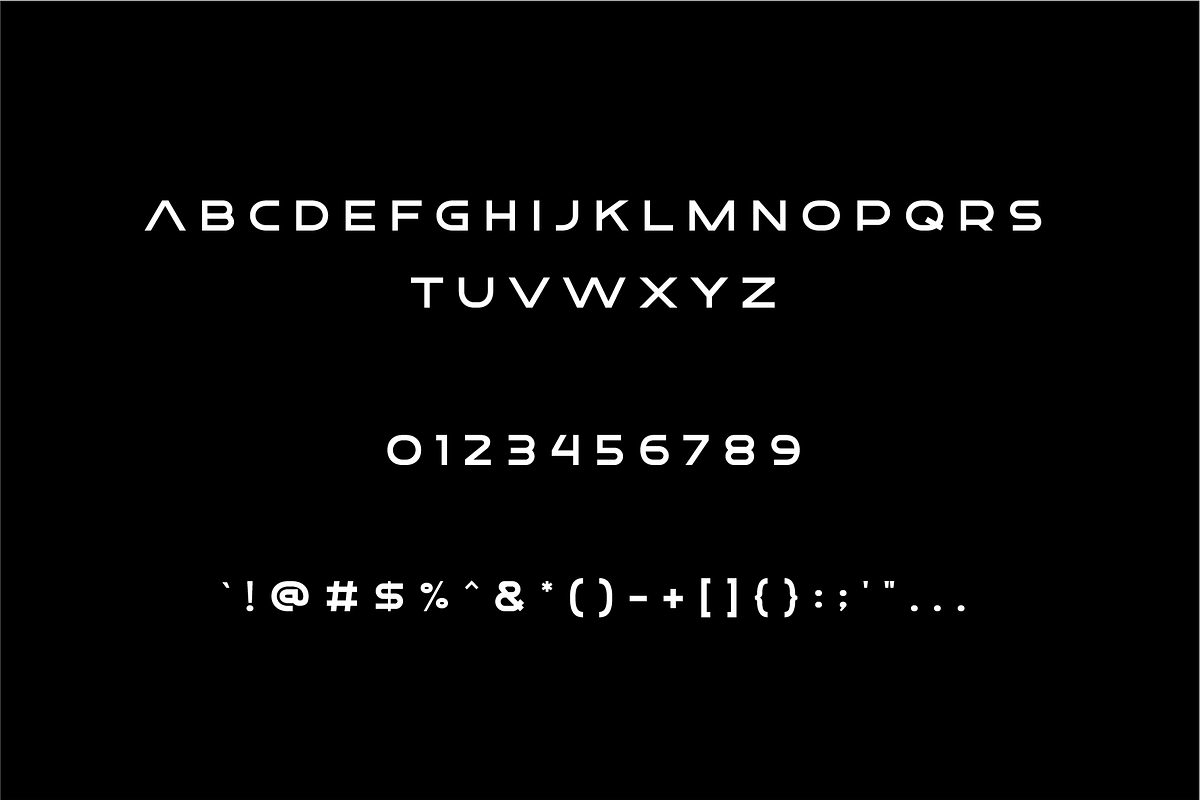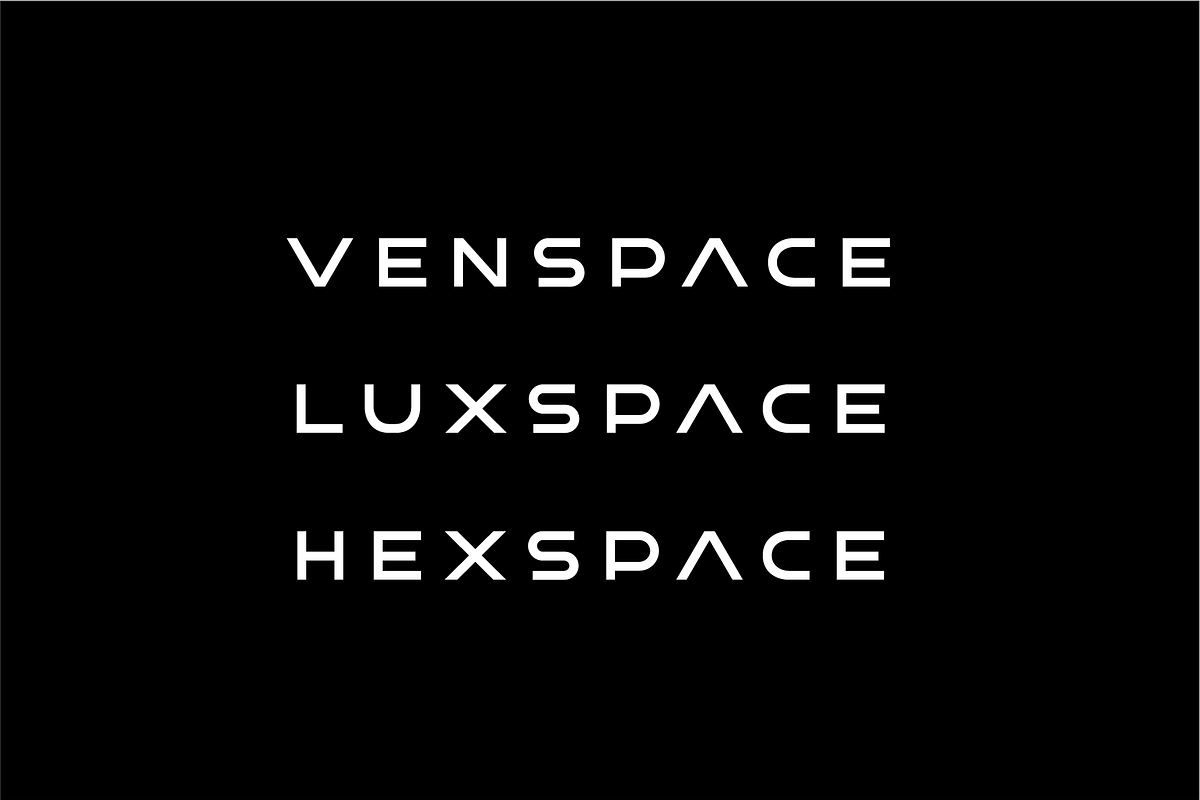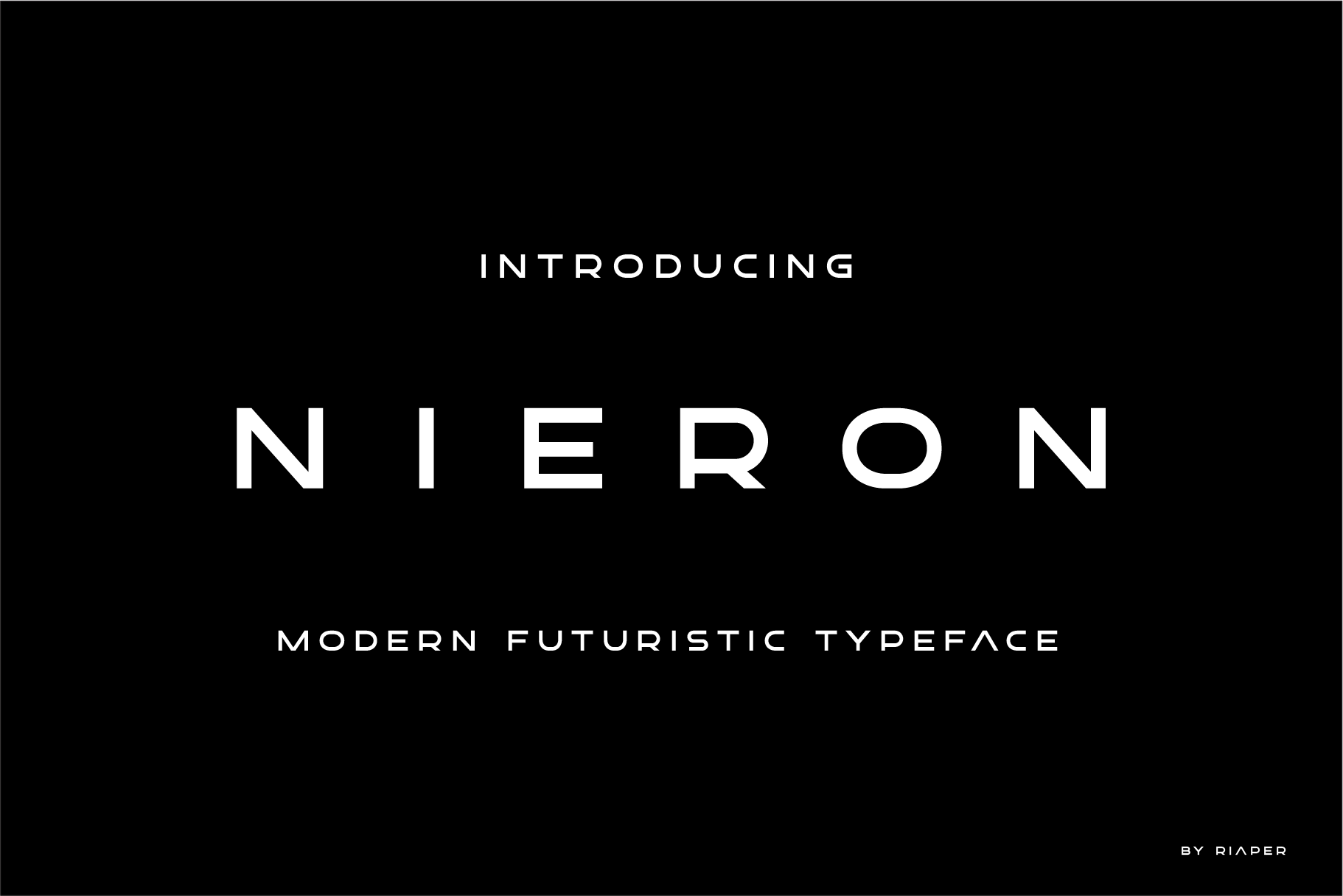
Nieron - Futuristic display typeface
Nieron is a bold futuristic display font designed to give your work a sleek, modern, and technological edge. Each letter is built with precision to reflect innovation and progress — perfect for projects that need a strong, forward-looking aesthetic.
This typeface is the versatile choice you need. Its timeless design blends simplicity and modern, making it ideal for:
- Technology and startup branding
- Futuristic posters or titles
- Product packaging
- UI/UX and digital presentations
Key Features :
- Uppercase letters